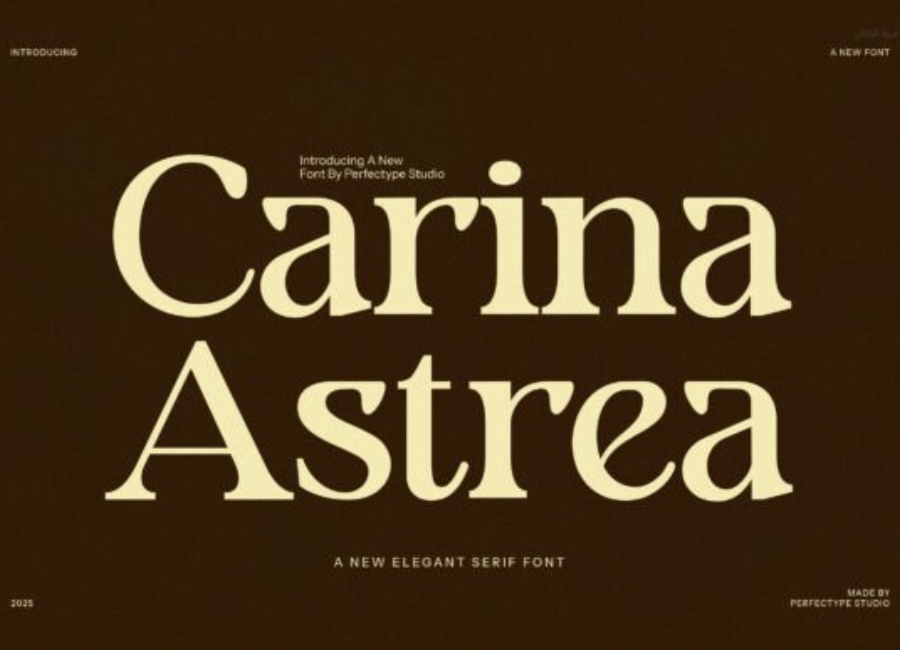
Carina Astrea Font: A Celestial Script for Elegant, Dream-Driven Design
Typography is one of the most expressive tools available to designers, and few fonts embody artistry and emotion as beautifully as the Carina Astrea Font. Known for its celestial charm and graceful handwritten style, Carina Astrea blends modern calligraphy with a soft, romantic personality. The result is a typeface that feels dreamlike—perfect for creative projects that require elegance, warmth, and visual enchantment.
A Handwritten Script with a Celestial Soul
Carina Astrea takes inspiration from the stars—its name itself evokes images of constellations, sky-gazing, and ethereal beauty. As a handwritten script font, it captures the delicate nuances of natural handwriting: flowing strokes, soft curves, and gently varying line thickness. These characteristics give the font a personal, heartfelt quality, making it ideal for projects that need a touch of intimacy.
The overall style is modern yet timeless. While it contains the flourishes and loops associated with calligraphy, it avoids becoming overly ornamental. Instead, Carina Astrea balances sophistication with readability, allowing designers to use it in both large display settings and more subtle typographic layouts.
Distinctive Features That Make Carina Astrea Shine
Carina Astrea stands out through several defining design qualities:
1. Elegant, Flowing Letterforms
Each letter is crafted with smooth, continuous strokes that mimic genuine pen movements. The rhythm of the characters creates visual harmony, making the font exceptionally pleasing for headlines, invitations, and branding.
2. Soft Line Variation
The gentle changes in stroke width add dimension without overpowering the composition. This subtle contrast gives Carina Astrea its graceful and airy look.
3. Stylish Alternates and Swashes
Many versions of the font include stylistic alternates—extended tails, decorative swashes, and looping flourishes. These special characters allow designers to customize lettering for more dramatic or whimsical effects.
4. A Romantic and Dreamlike Aesthetic
The font’s dreamy personality makes it a favorite for creative fields that value emotion, storytelling, and beauty.
Perfect for Creative Branding and Visual Identity
Carina Astrea communicates warmth, femininity, and sophistication—qualities ideal for expressive branding. It works especially well for businesses that lean toward elegance or artisanal craftsmanship.
Common uses include:
-
Boutique logos
-
Beauty and wellness branding
-
Handmade product labels
-
Wedding and event businesses
-
Lifestyle blogs and creative studios
The handwritten style gives brands a personal touch, helping them feel approachable yet stylish. When used in logos, the font can be paired with minimalist sans-serifs or clean serif text to create a balanced, polished identity system.
A Stunning Choice for Invitations and Stationery
Carina Astrea shines brightest in print-based, emotionally driven projects such as:
-
Wedding invitations
-
Greeting cards
-
Event signage
-
Certificates
-
Personalized gifts
Its flowing curves create an impression of intimacy and celebration. The font transforms simple text into artwork, making special occasions feel even more memorable.
Beautiful for Social Media and Digital Content
In the digital world, standout visuals are key. Carina Astrea’s elegant brush-like style makes it ideal for creating:
-
Instagram quotes
-
Branding templates
-
YouTube thumbnails
-
Pinterest graphics
-
Website banners
Its expressive appearance gives posts a handcrafted, aesthetic look that resonates with audiences who appreciate artistic and meaningful design.
User-Friendly and Designer-Friendly
Carina Astrea is not just beautiful—it’s practical.
Most versions include:
-
Smooth kerning and balanced spacing
-
Multilingual characters
-
Alternates for added customization
-
High-resolution vector curves
This ensures the font looks crisp and intentional in both print and digital applications.
A Font That Captures Imagination
What truly sets Carina Astrea apart is its emotional resonance. It doesn’t simply present words—it expresses them. The font evokes feeling, creativity, and a sense of wonder. It brings poetry to logos, romance to invitations, and personality to everyday design.
Conclusion
The Carina Astrea Font is more than a handwritten script—it is an artistic tool that adds magic and emotion to any project. Whether you’re crafting a wedding invitation, building a brand, or creating aesthetic digital content, Carina Astrea offers elegance, warmth, and a touch of celestial beauty. Its flowing lines and romantic presence make it a timeless choice for designers who want their work to feel personal, expressive, and visually captivating.